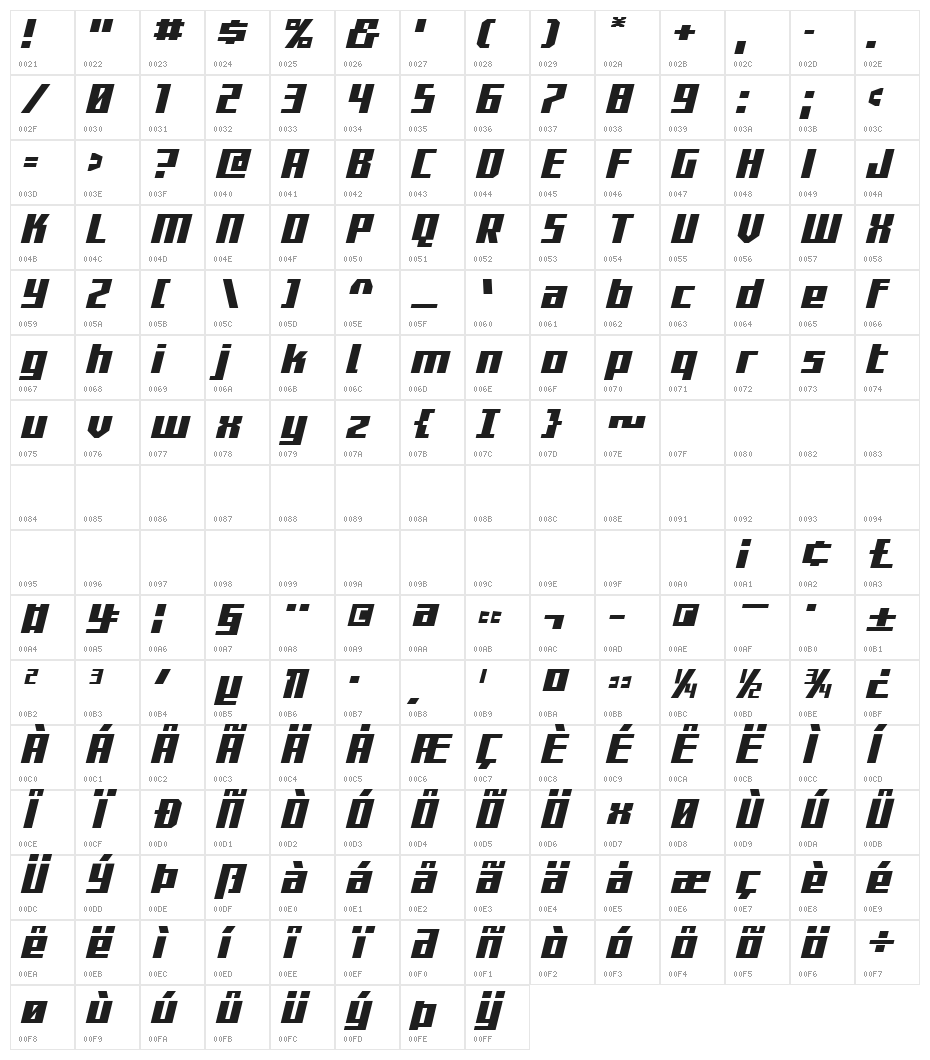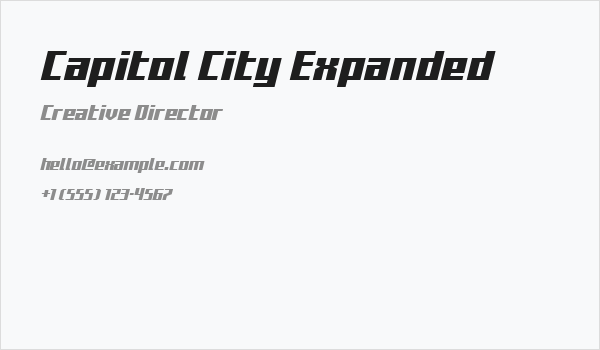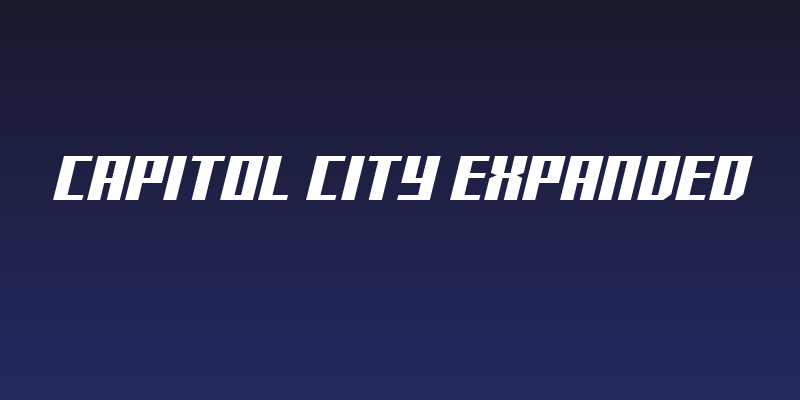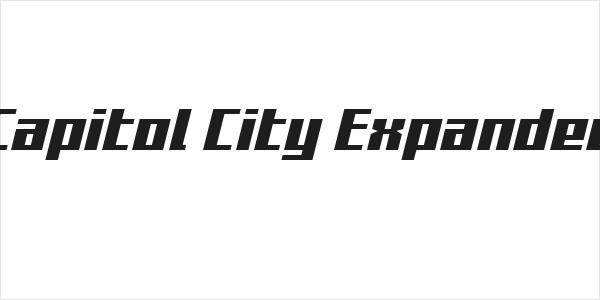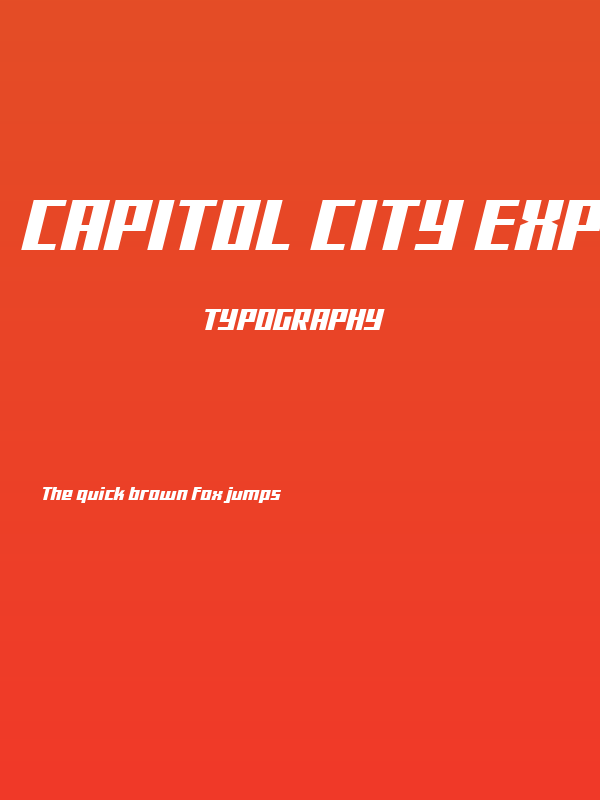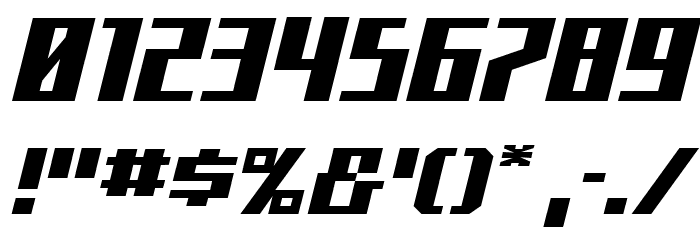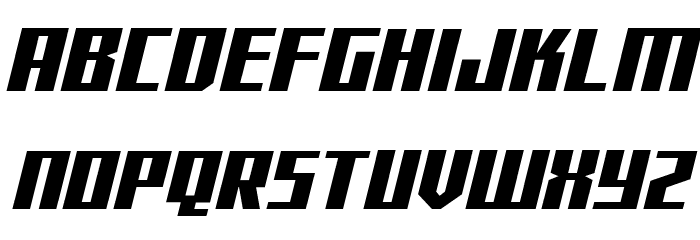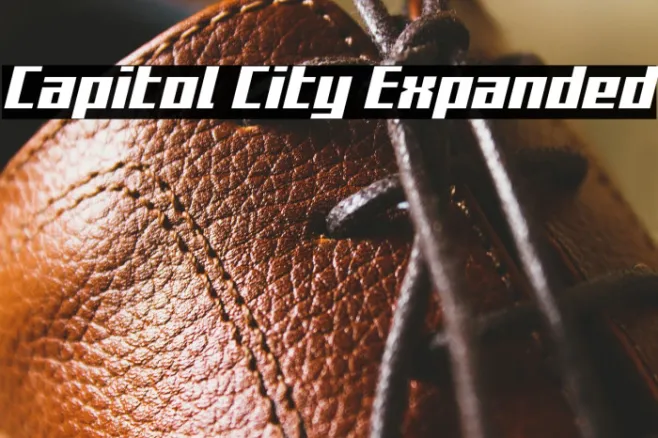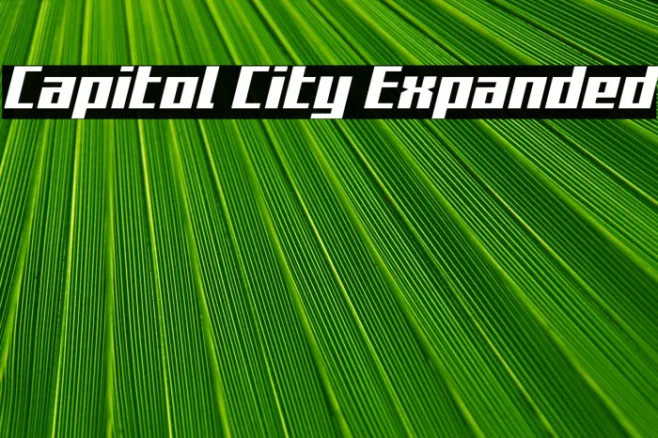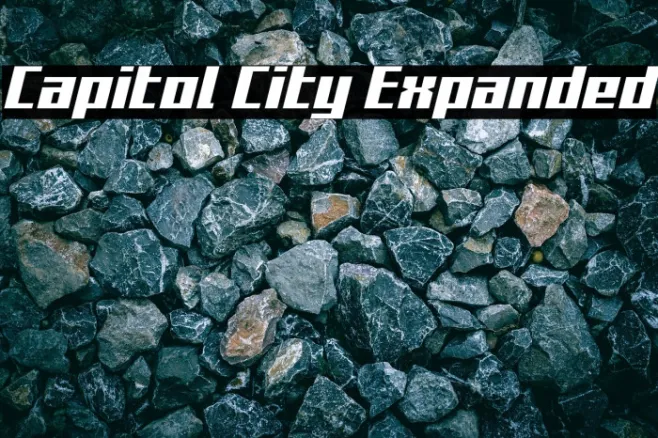
Capitol City Expanded Font
Capitol City Expanded Description
This font features a bold, angular design with a futuristic and dynamic appearance. The characters are sharply cut with a distinct slant, giving them a sense of motion and energy. The uppercase and lowercase letters maintain a consistent style, with the lowercase being slightly more compact. Numbers and special characters follow the same angular theme, ensuring uniformity across all glyphs. The font's expanded width and bold weight make it highly visible and impactful, suitable for attention-grabbing designs.
| Proposed Projects | Ideal for sports branding, sci-fi movie posters, video game titles, and dynamic advertising campaigns. |